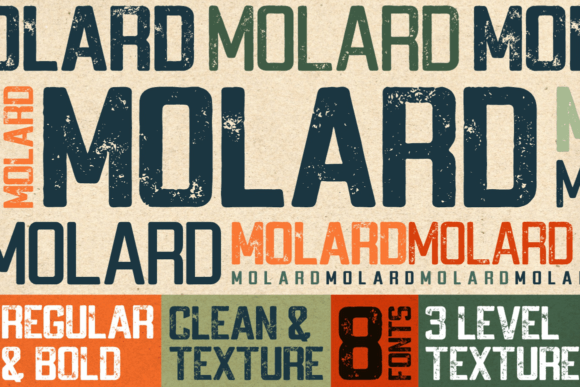
Unleash your design potential with Molard – Modern Various Font. This sans-serif typeface offers a diverse range of styles, featuring two distinct weights and versions – clean and textured. With a selection of three texture levels, Molard presents a total of eight fonts in its collection.
Molard is not just a font; it's a creative powerhouse. Its contemporary and robust aesthetic adds an assertive touch to your projects, making them stand out from the crowd. Whether you're creating a logo, establishing a brand identity, designing labels, or crafting impactful quotes, Molard empowers your creativity to flourish.
What sets Molard apart is its versatility. With two weights and versions available – clean and textured – and a unique selection of three texture levels, this sans-serif typeface encompasses eight distinct fonts. This means that you have a wide range of design possibilities at your fingertips. From sleek and minimalistic to bold and textured, Molard has it all.
Imagine the impact your designs will make with Molard. Its modern and sturdy appearance lends a powerful essence to your creations, ensuring that they leave a lasting impression. Whether you're preparing print materials, curating magazine layouts, or composing eye-catching posters and film titles, Molard will elevate your work to new heights.
But Molard is more than just a font collection; it's a tool for expressing your unique style and personality. It's the perfect companion for designers, artists, and creatives who want to make a statement with their work. With Molard, you have the freedom to explore and experiment, pushing the boundaries of typography and design.